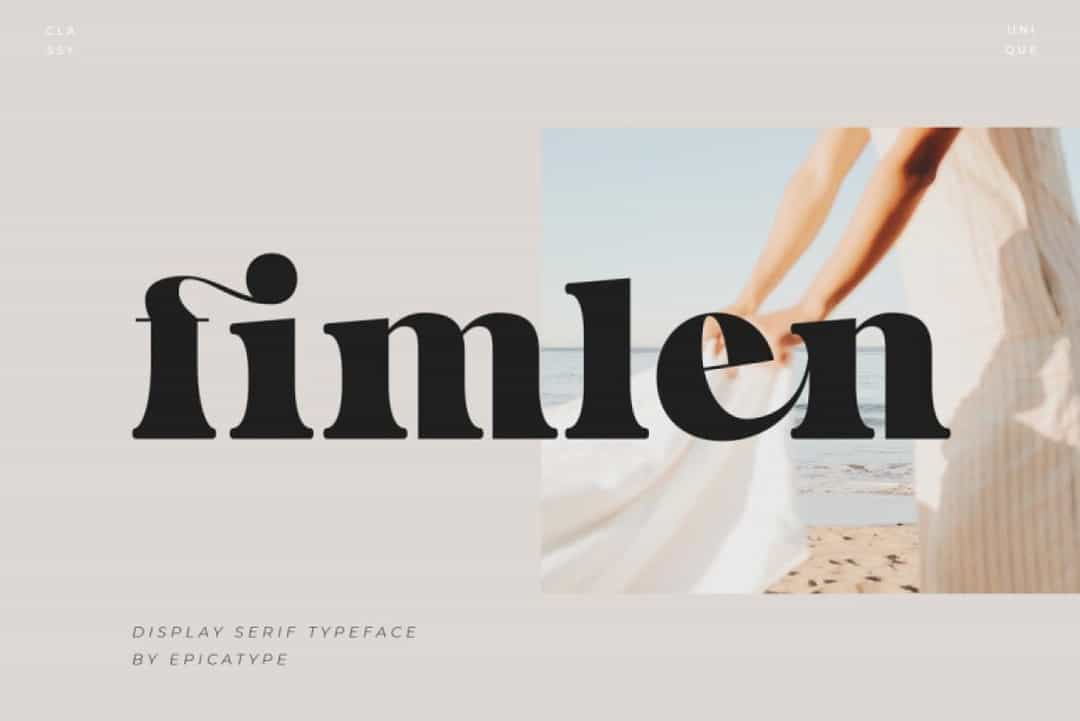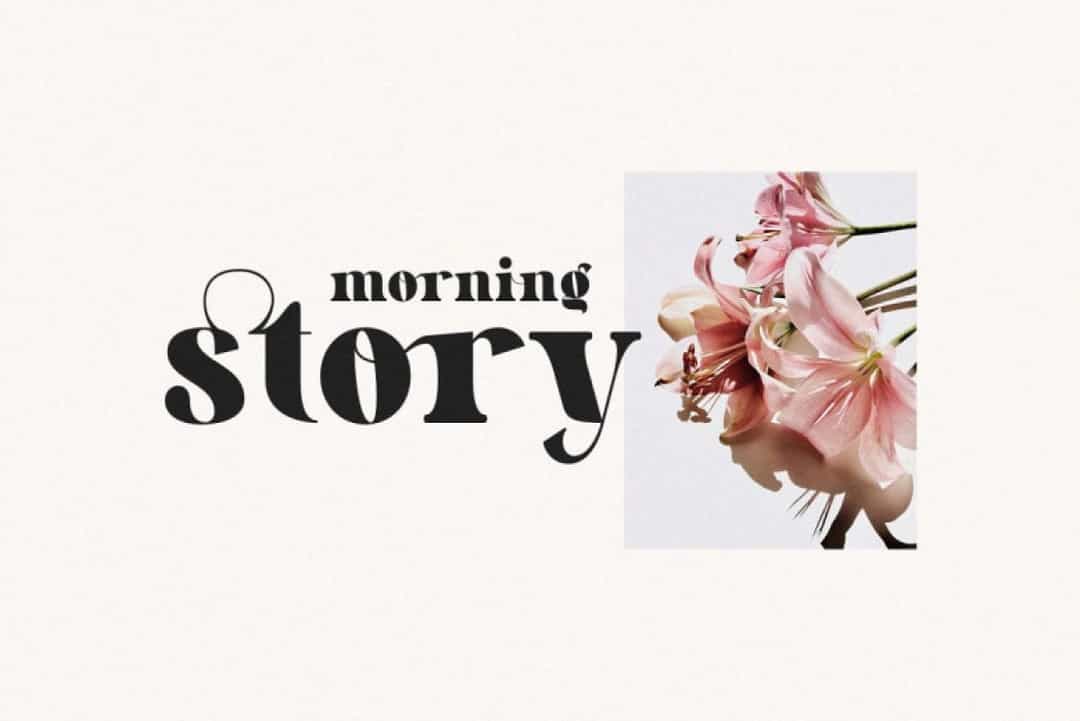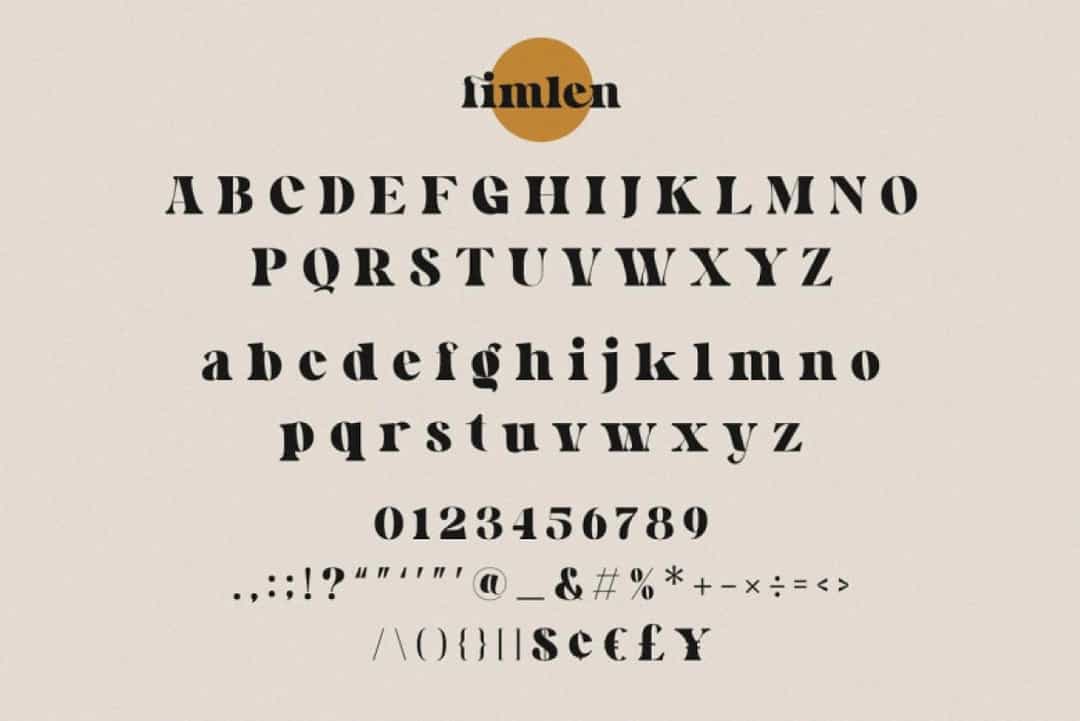
Fimlen is an elegant serif typeface perfect for logos, social media posts, magazines advertising campaigns, branding names or name tags – as well as numerous other uses. Furthermore, this font can be PUA encoded to give access to all its characters with ease!